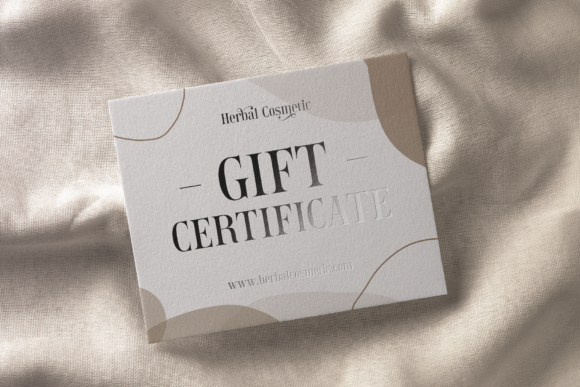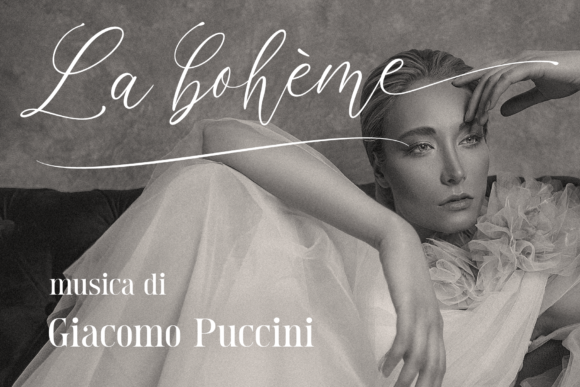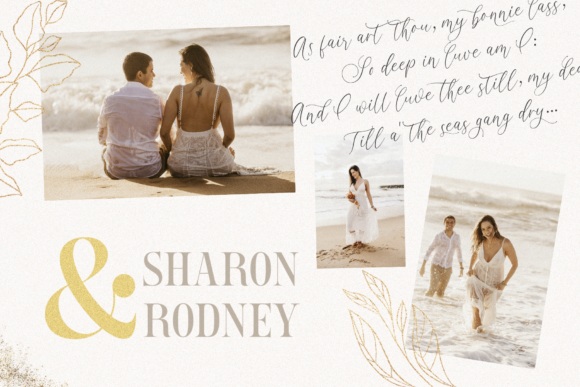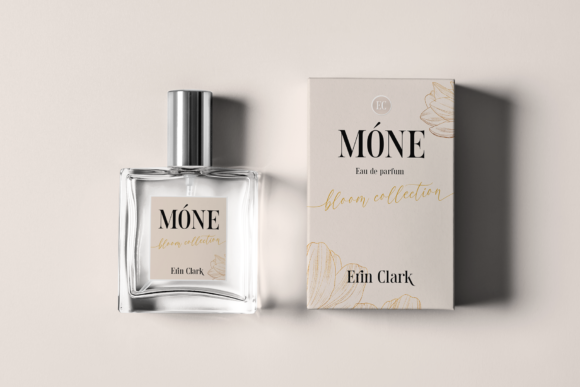
Opera Signature Font
Opera Signature is an imposing and refined duo font (handwritten and serif). Whatever the topic, this font will be a wonderful asset to your font library, as it has the potential to enhance any creation.